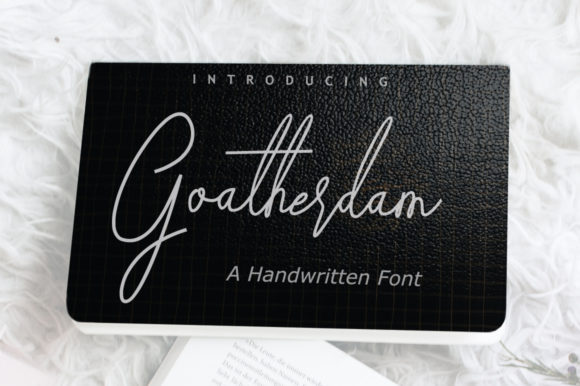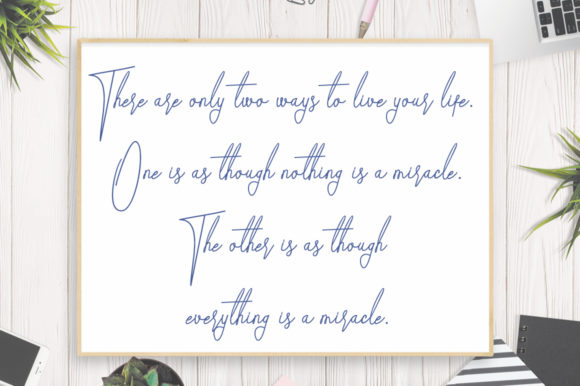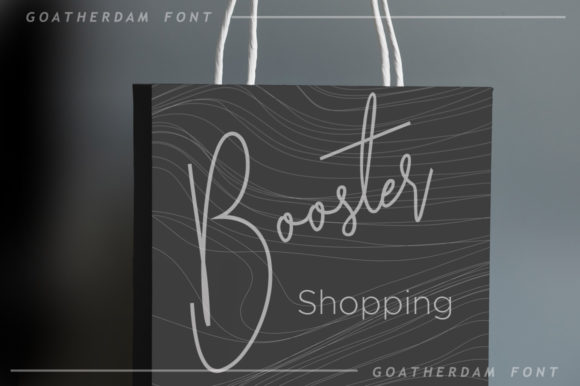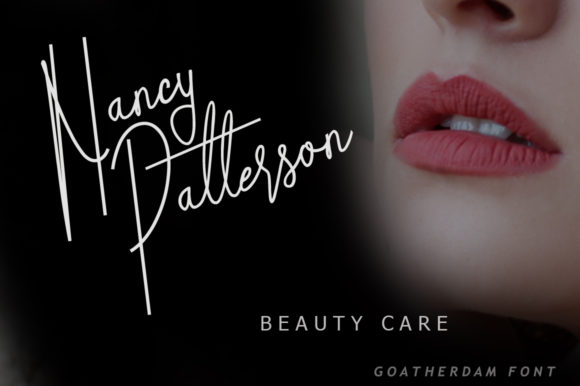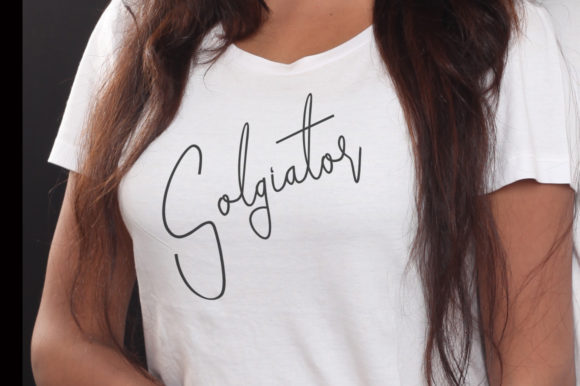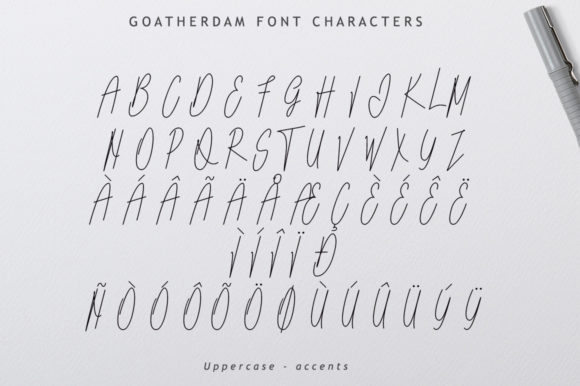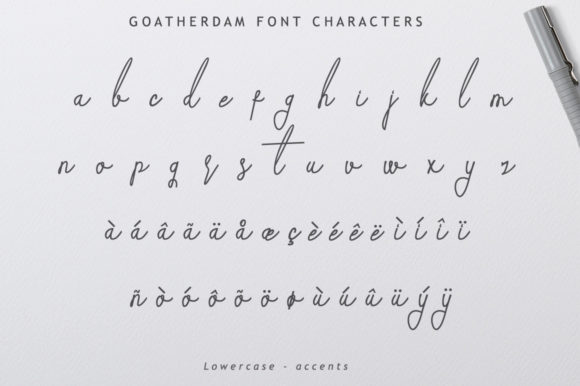
Goatherdam Font
About Goatherdam Font
Goatherdam is a handwritten script font with a realistic and natural style that will add a personal and unique touch to any design project.